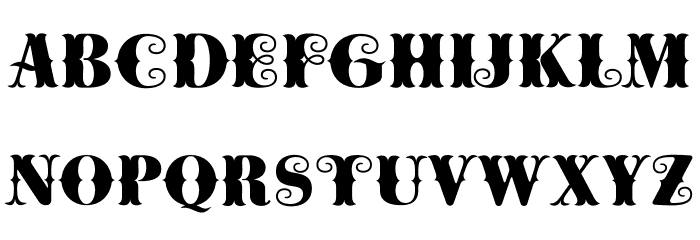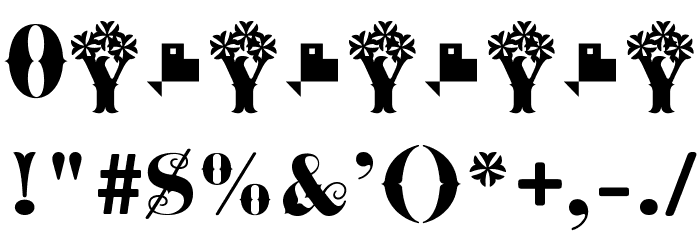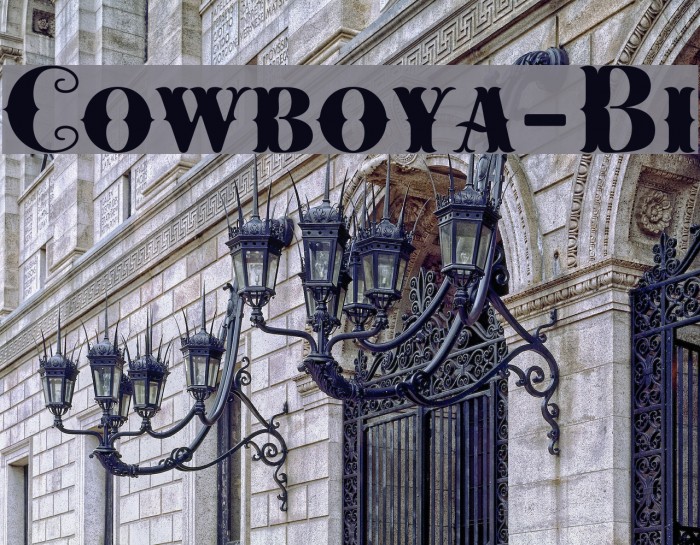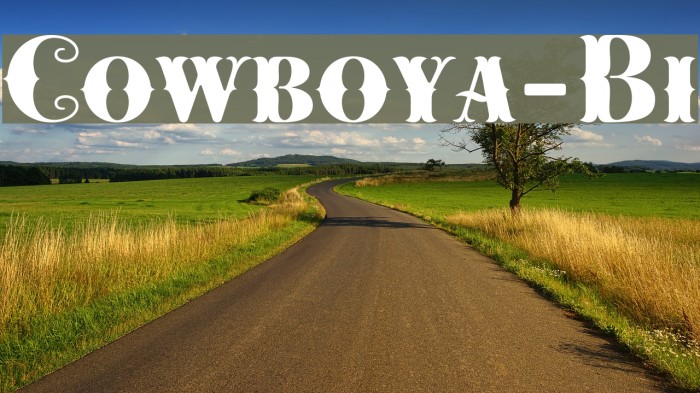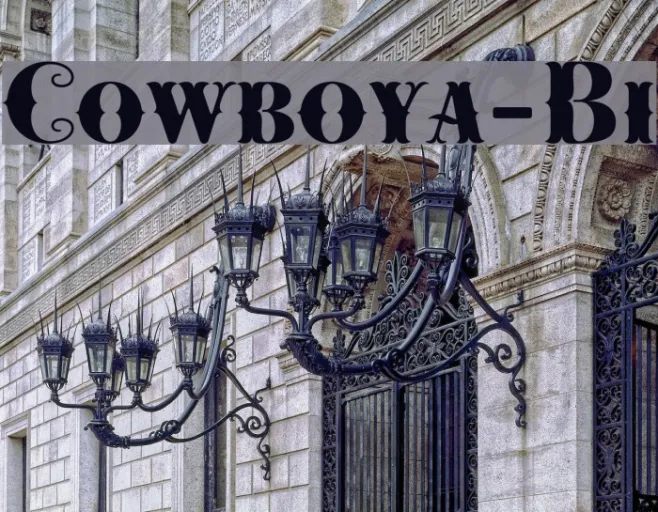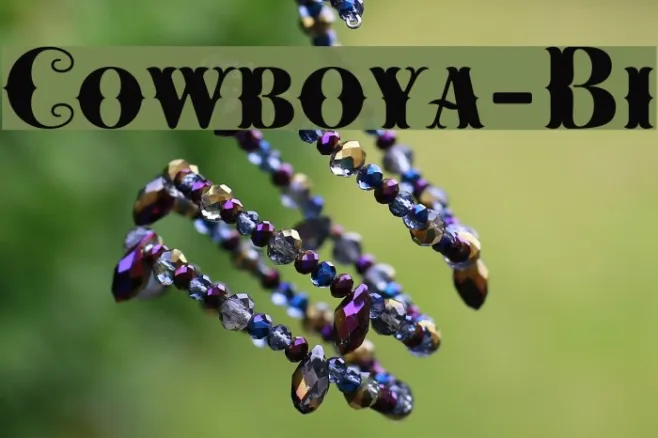
Cowboya-Bi Font
This font features a bold and decorative style with intricate details that evoke a sense of the Wild West. The uppercase letters are adorned with ornate swirls and flourishes, giving each character a unique and artistic appearance. The lowercase letters maintain the same decorative theme, ensuring consistency throughout the typeface. The numbers and special characters are equally embellished, making them stand out with their distinctive design. This font is ideal for projects that require a touch of vintage charm and creativity.
A bold, decorative font with intricate Western-style details.
- Proposed Projects: Perfect for vintage-themed posters, Western-style branding, creative invitations, and decorative signage.
- Overall Style: Vintage, Decorative